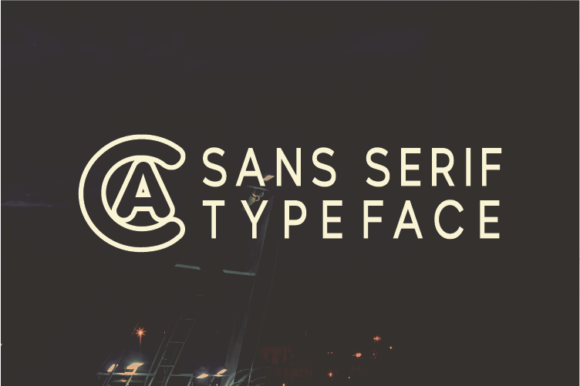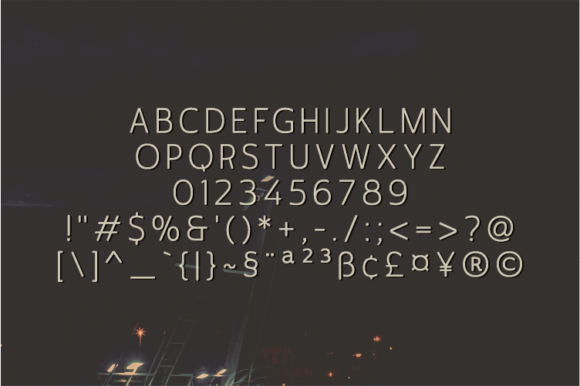
Introduction to Polfmoon Font
As a designer, you know the struggle of finding the perfect font to elevate your creative project. It’s that moment when you’re staring at a blank canvas, searching for the perfect combination of style and sophistication. And then, you stumble upon it – the Polfmoon Font.
This modern, thin and classy sans serif font has the potential to become your go-to design resource. With its high quality and versatile style, the Polfmoon Font is suitable for a wide variety of designs, from sleek and modern websites to elegant and refined print materials. And the best part? It’s available for a free download, making it an invaluable resource for designers on a budget.
Whether you’re working on a creative project with a transparent background or simply need a font that exudes class and sophistication, the Polfmoon Font is sure to impress. In this article, we’ll take a closer look at this exciting design resource and explore why it’s a valuable addition to any designer’s toolkit.
Key Features of Polfmoon Font
- High-quality font designed for creative projects, ideal for use as a design resource.
- Transparent background, making it suitable for use on both light and dark backgrounds.
- Available in a range of sizes, from 12pt to 72pt, allowing for flexibility in design applications.
- High-resolution font, suitable for use in print and digital applications up to 300 DPI.
- Unique characteristics include a clean, modern design and a wide range of stylistic alternates.
- Perfect for use in various creative projects, including logos, branding, and typography-based designs.
Honest Review: Polfmoon Font
I recently had the chance to try out the Polfmoon Font, and I must say it’s a solid addition to any designer’s toolkit. ✨ The high-quality design makes it perfect for a variety of creative projects, from logos to brochures.
One of the standout features of the Polfmoon Font is its versatility. It comes in a range of weights and styles, making it easy to adapt to different design needs. The font is also available for a free download, which is a huge plus for designers on a budget.
- High-quality design suitable for a variety of creative projects
- Available in multiple weights and styles
⚠️ While the Polfmoon Font is a great resource, I did find it to be a bit limited in terms of its overall character set. Some special characters and symbols may not be included, which could be a drawback for designers working on projects that require a wide range of typography.
Overall, the Polfmoon Font is a great design resource that can add a touch of sophistication to any creative project. While it may have some limitations, its high-quality design and free download make it a solid choice for designers of all levels.
Getting the Most Out of Polfmoon Font
For the best results, use Polfmoon Font in conjunction with a high-quality design resource, such as a transparent background image. Experiment with different font sizes, colors, and styles to find the perfect combination for your creative project.
Polfmoon Font is ideal for use in creative projects, such as logos, business cards, and infographics. It’s also great for use in presentations, documents, and websites. With its high-quality design, Polfmoon Font is a valuable resource for designers and non-designers alike.
Alternatives to Polfmoon Font
The Great Vibes Font is a high-quality, elegant script font perfect for creative projects that require a touch of sophistication. It’s ideal for use in titles, headings, and body text. With its transparent background, it’s easy to place over images or other design elements.
Compared to Polfmoon Font, Great Vibes Font has a more refined and polished look, making it suitable for a wider range of design projects.
The Alex Brush Font is a beautiful, hand-painted script font that adds a personal touch to any design. It’s perfect for use in creative projects that require a unique and artistic feel. With its transparent background, it’s easy to combine with other design elements.